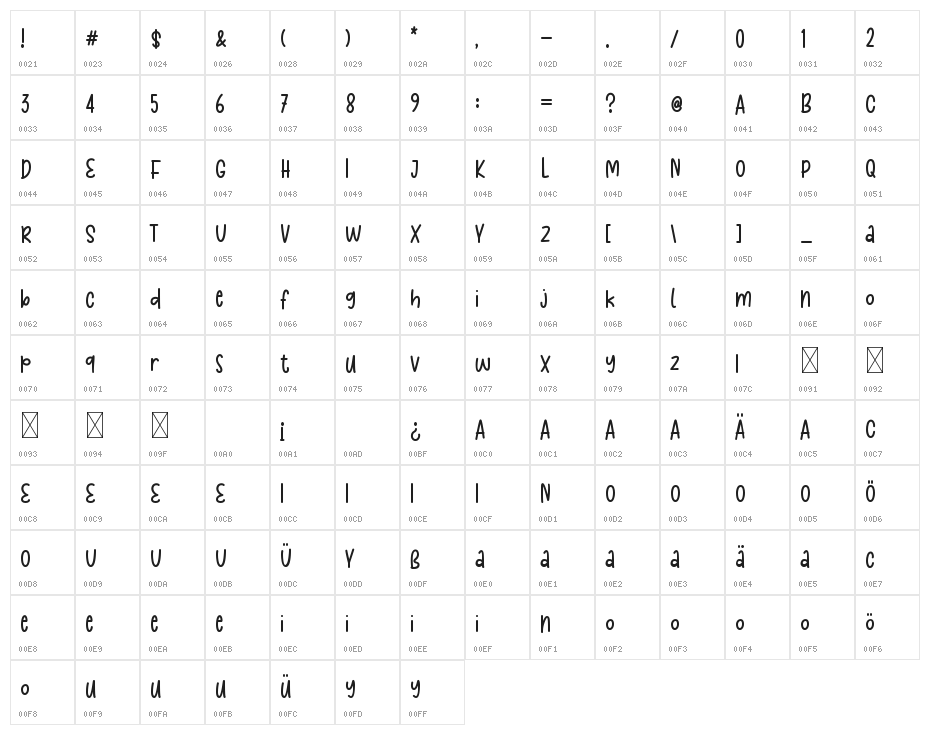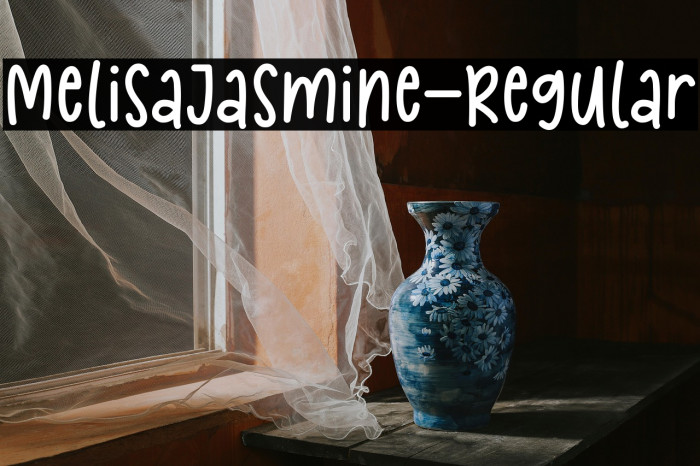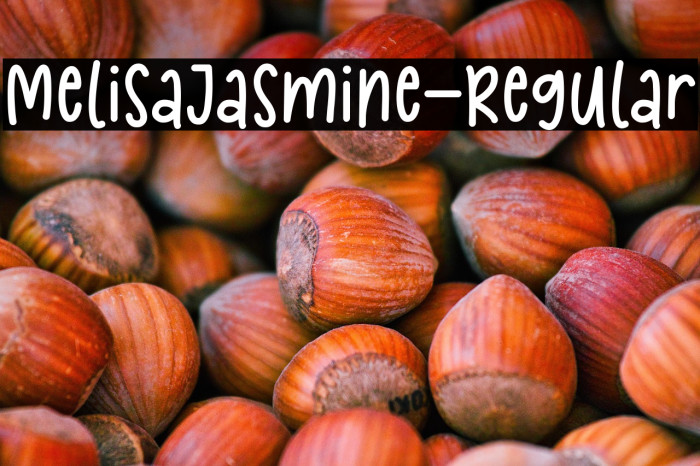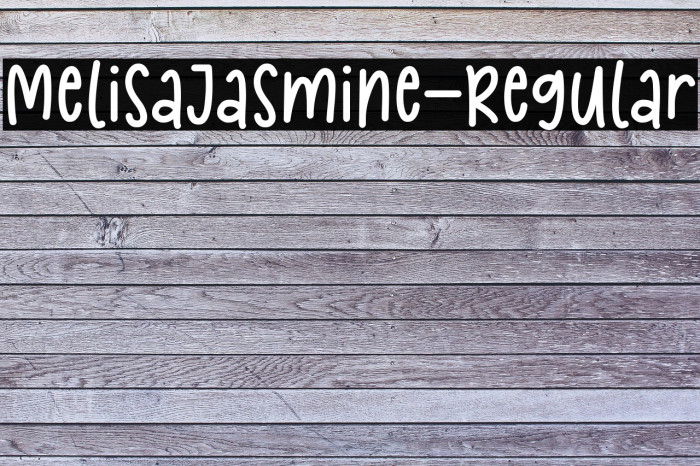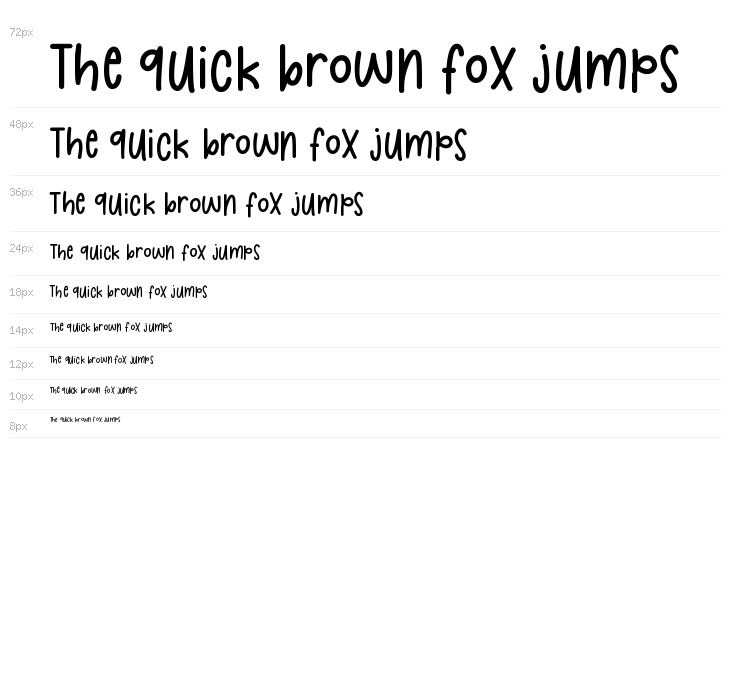
MelisaJasmine-Regular Font
MelisaJasmine-Regular Description
This font features a playful and casual handwritten style, characterized by its rounded and slightly irregular letterforms. The uppercase and lowercase letters maintain a consistent flow, giving a friendly and approachable appearance. The numerals and special characters complement the overall style, ensuring readability while retaining the font's unique charm. The strokes are moderately thick, providing a balanced contrast that enhances legibility without sacrificing the font's whimsical nature.
| Proposed Projects | Ideal for greeting cards, children's books, playful branding, and casual invitations. |